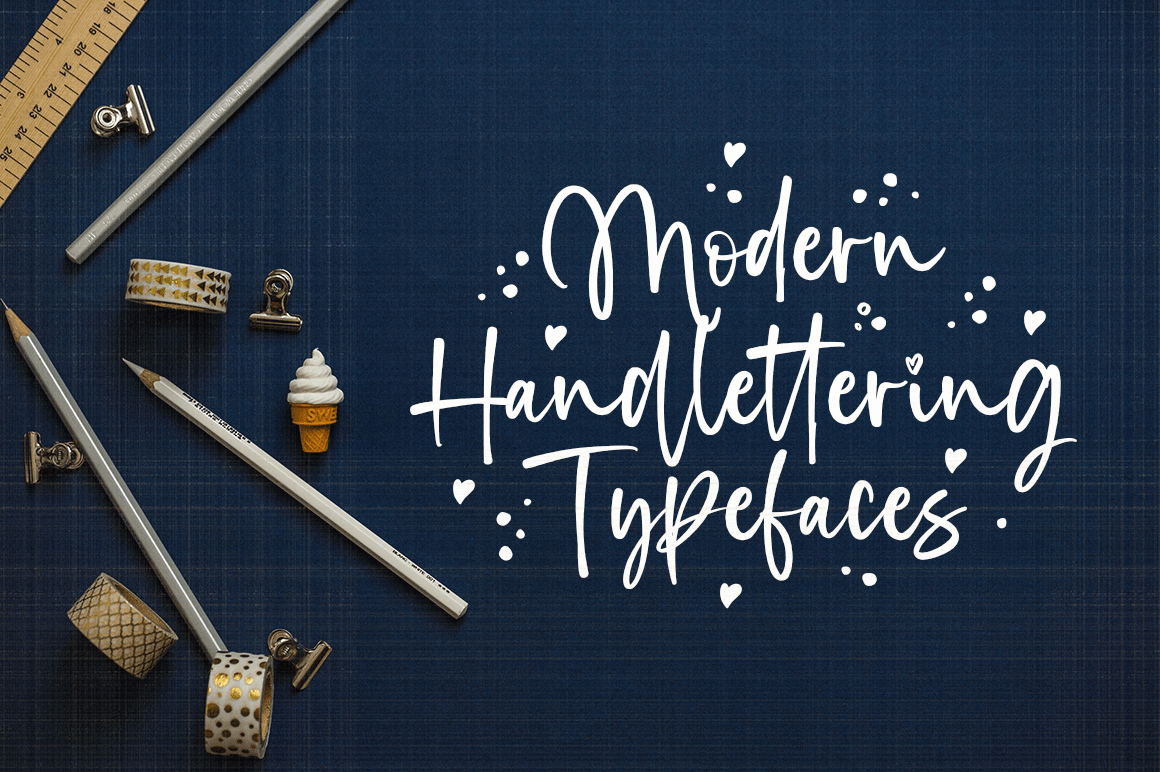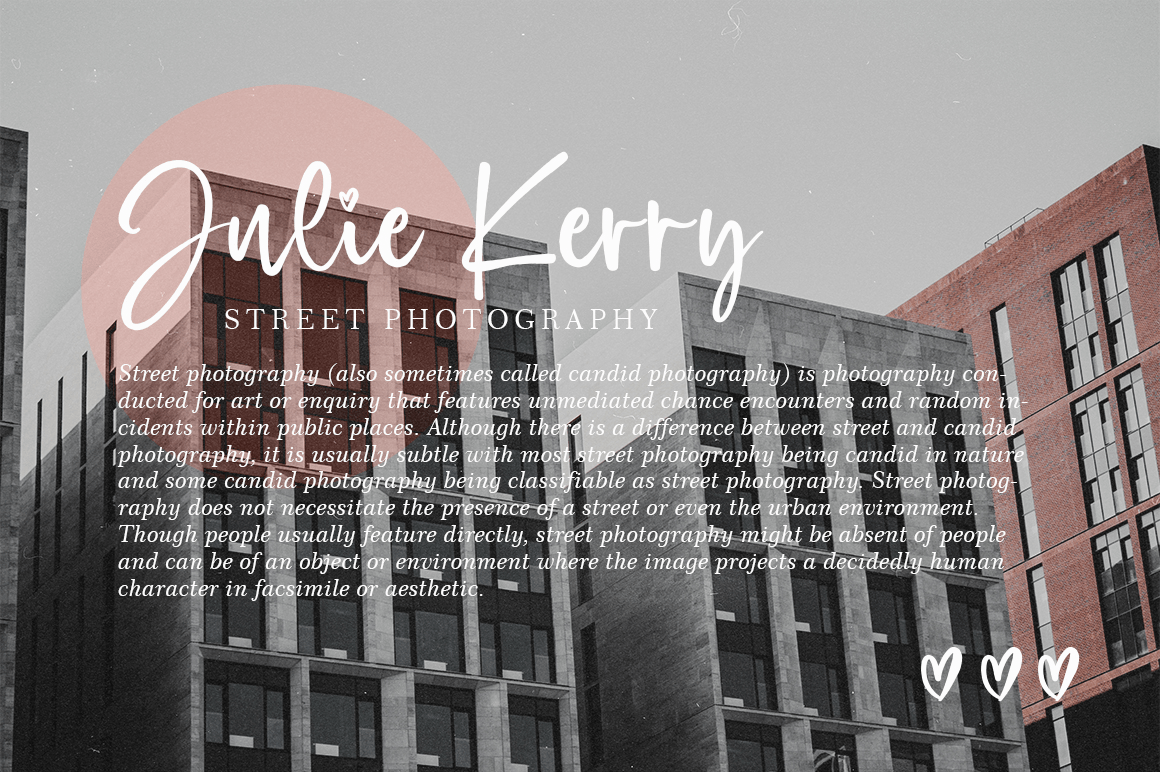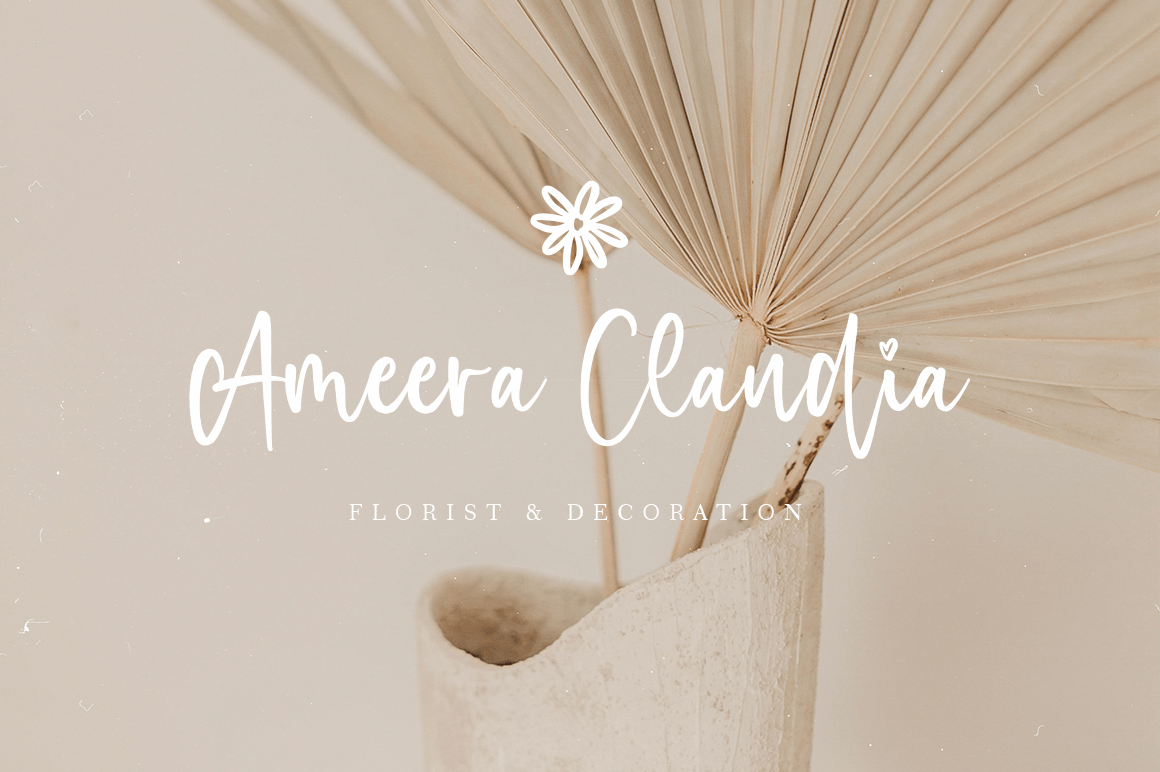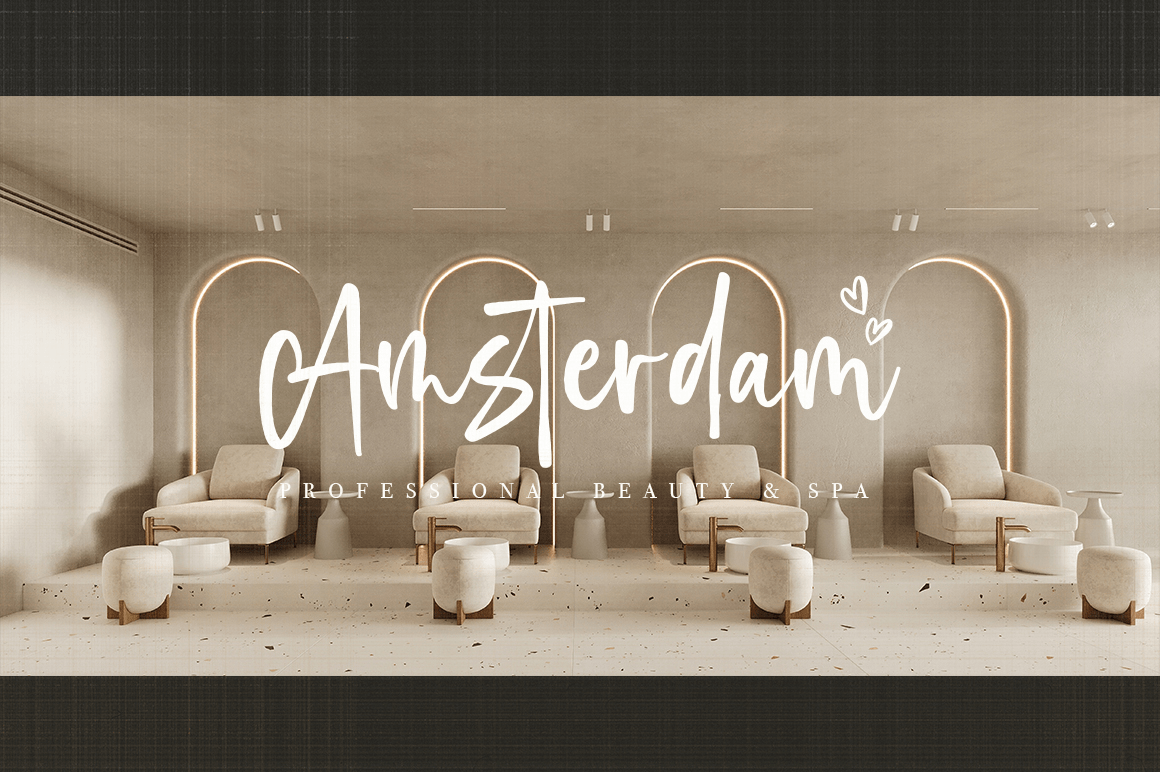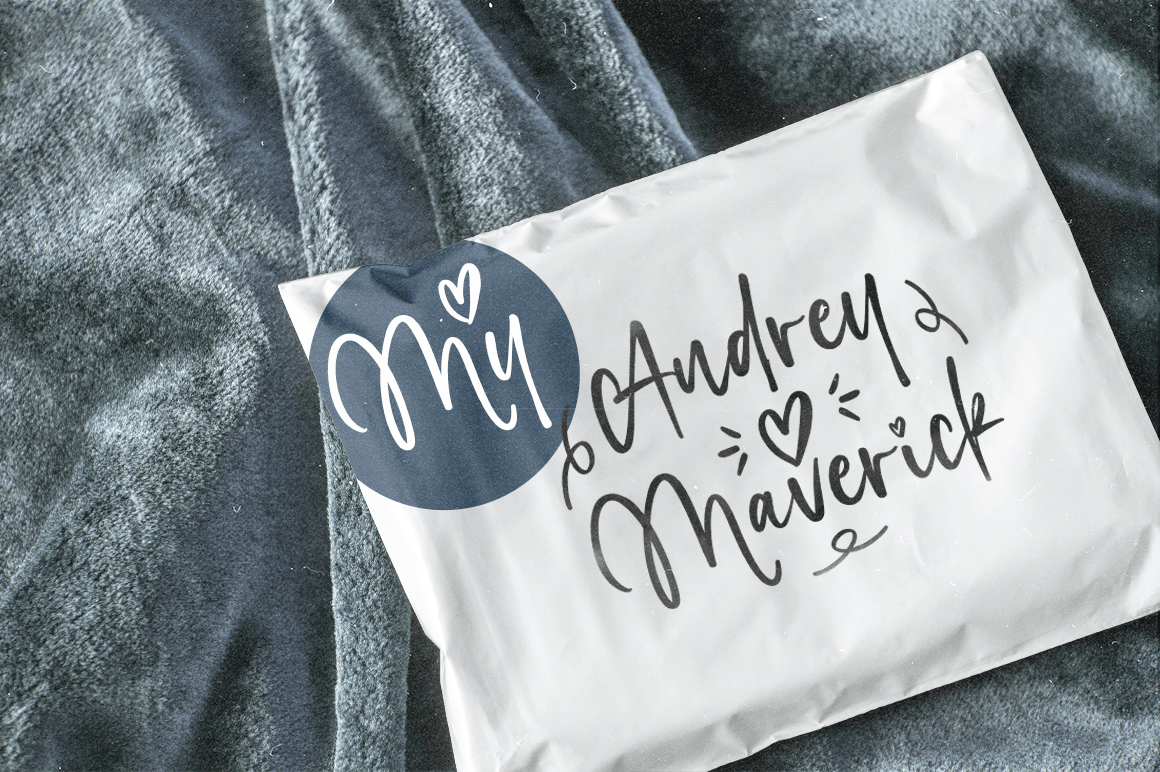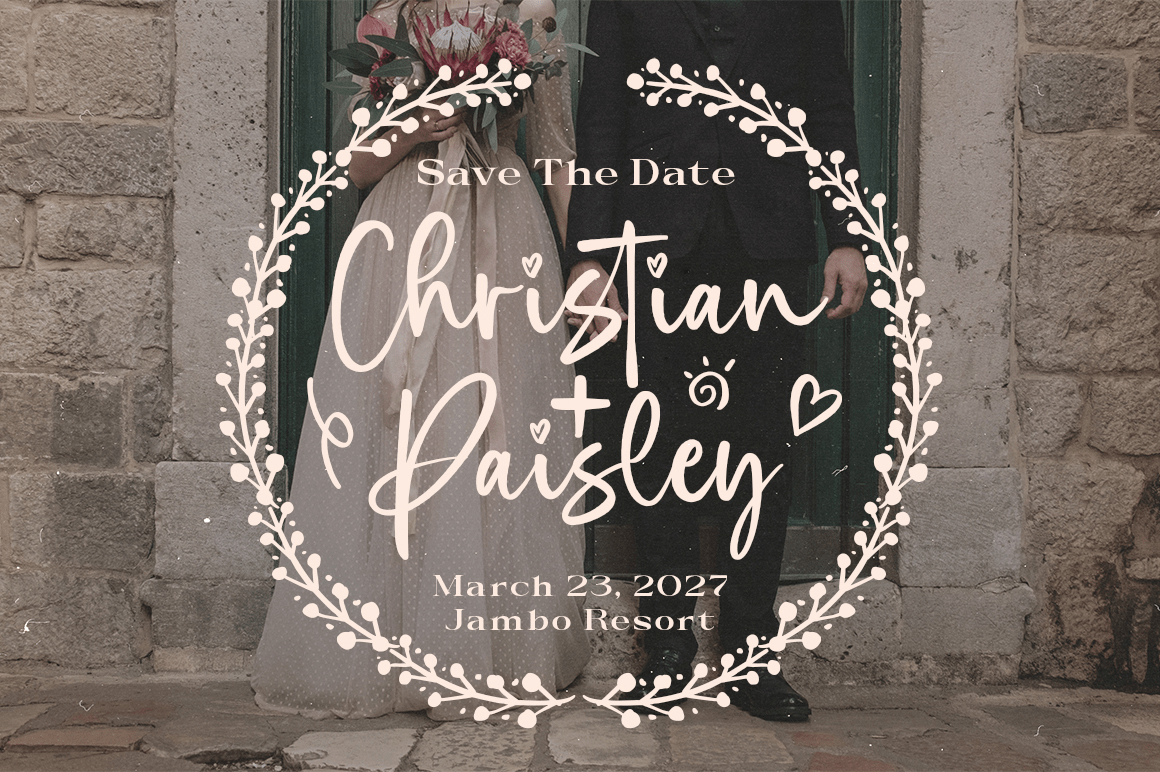
Beautiful Moonlight
About Beautiful Moonlight
Beautiful Moonlight is handwritten stylish copperplate calligraphy fonts, combines from copperplate to contemporary typeface with a dancing baseline, classic and elegant touch. Can be used for various purposes. such as headings, signature, logos, wedding…